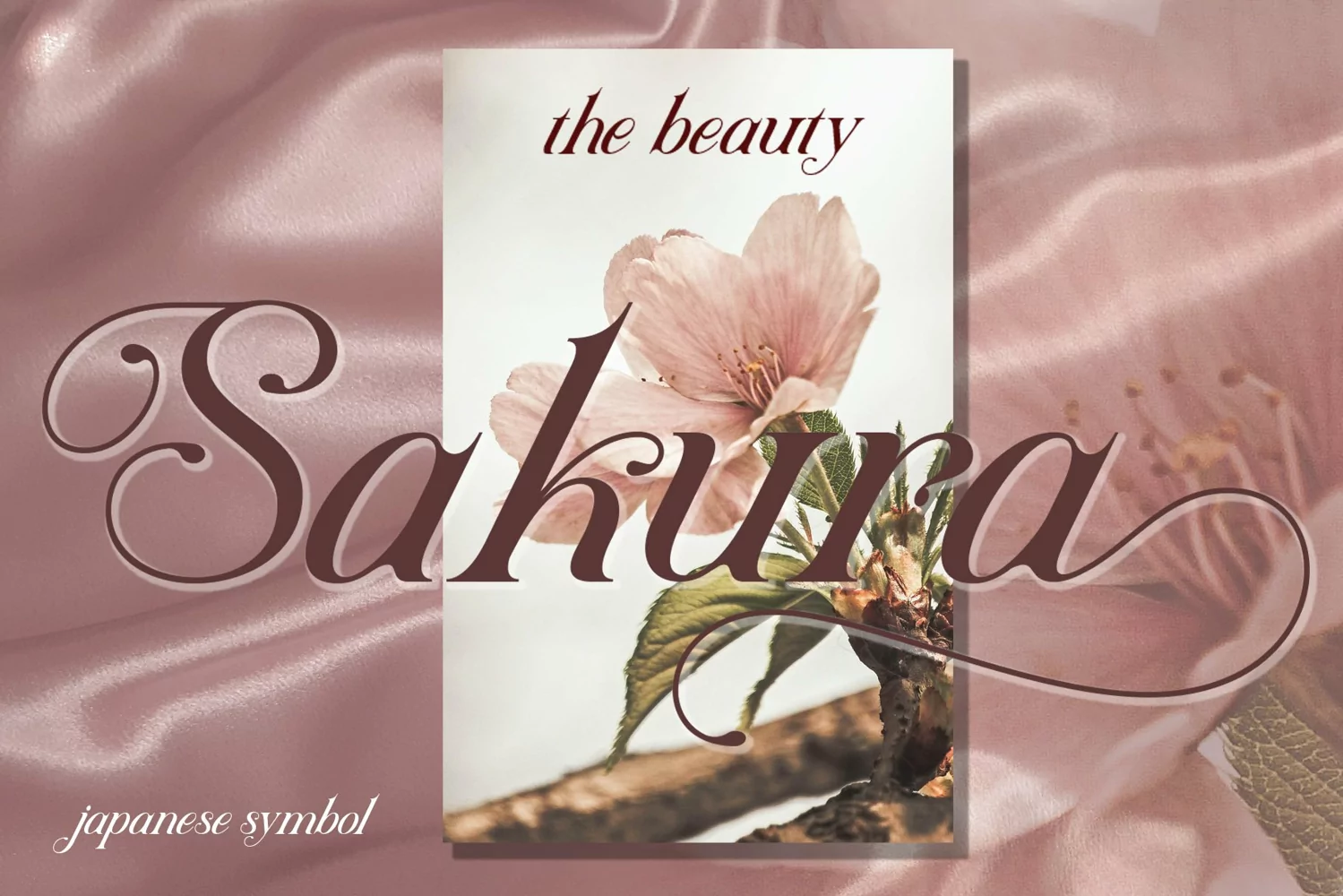
Goldenwick
This pair was inspired by lettering at invitation design that i got few weeks ago, it was crafted by hand specially to add natural handmade feeling in its brand identity than i make it clean with pentool.
Goldenwick font has 207 character set included.
This font is very good for design logo, labels, packaging product, invitations, advertising and others, this font will make your design authentic and good looking with modern calligraphy style.
If you’re looking for original calligraphy script font for your greeting card and make your design authentic, this item is a great choice to make your design looks great and unique.